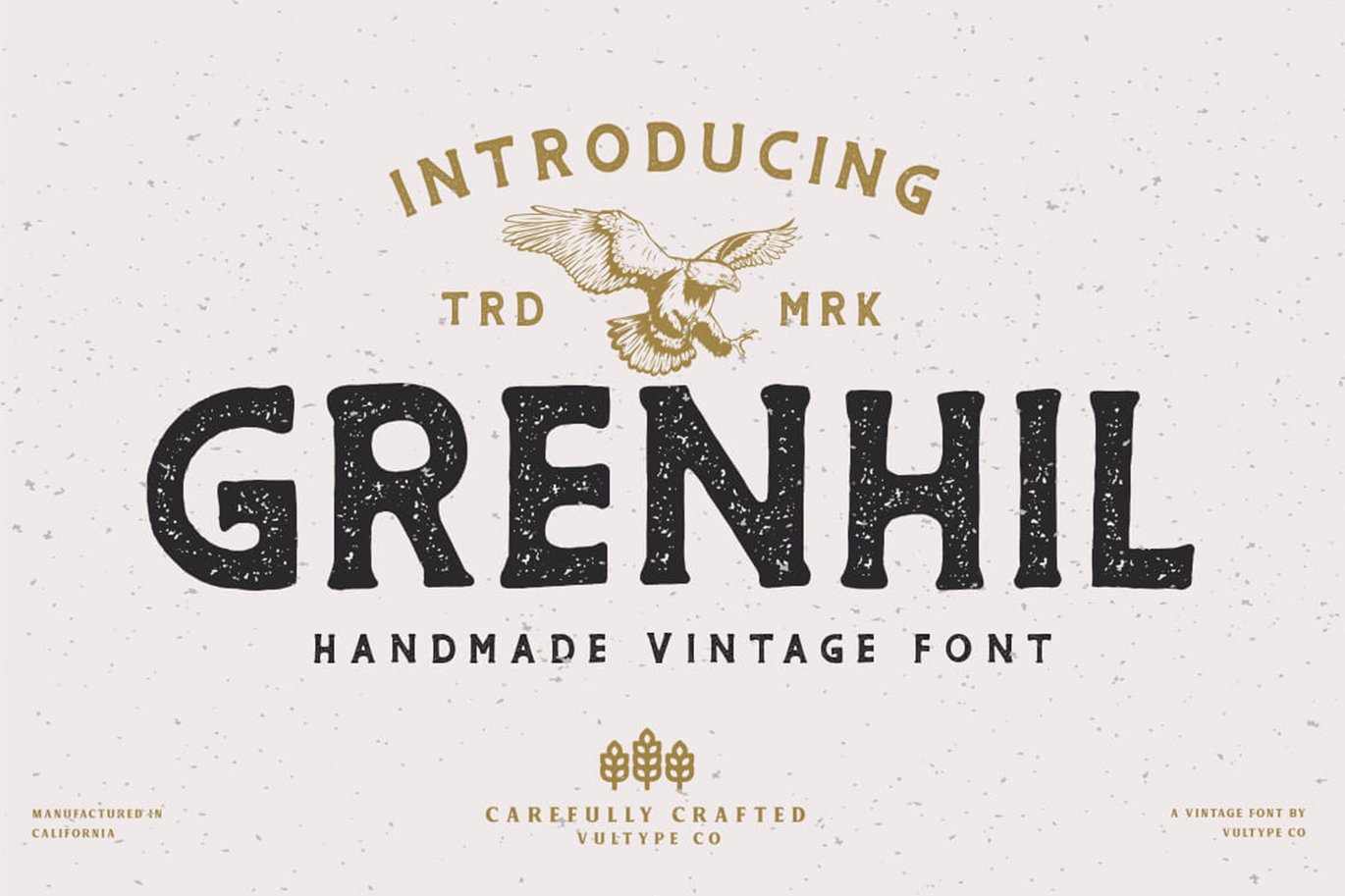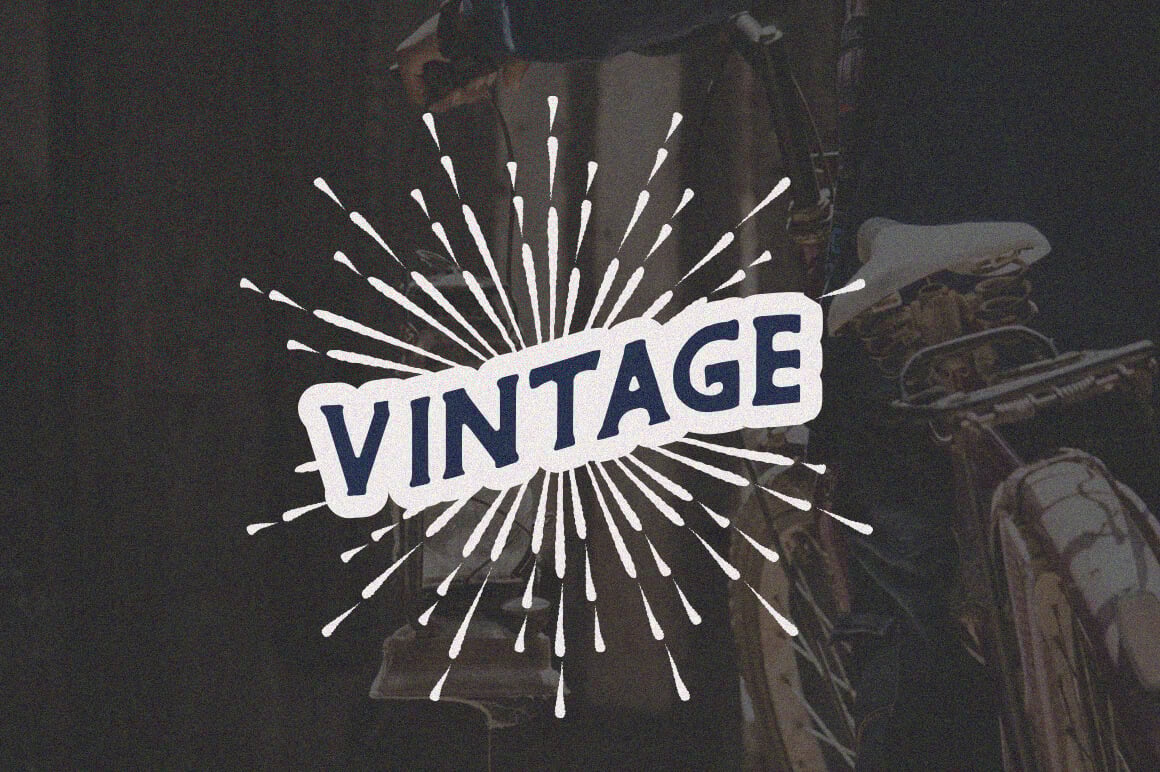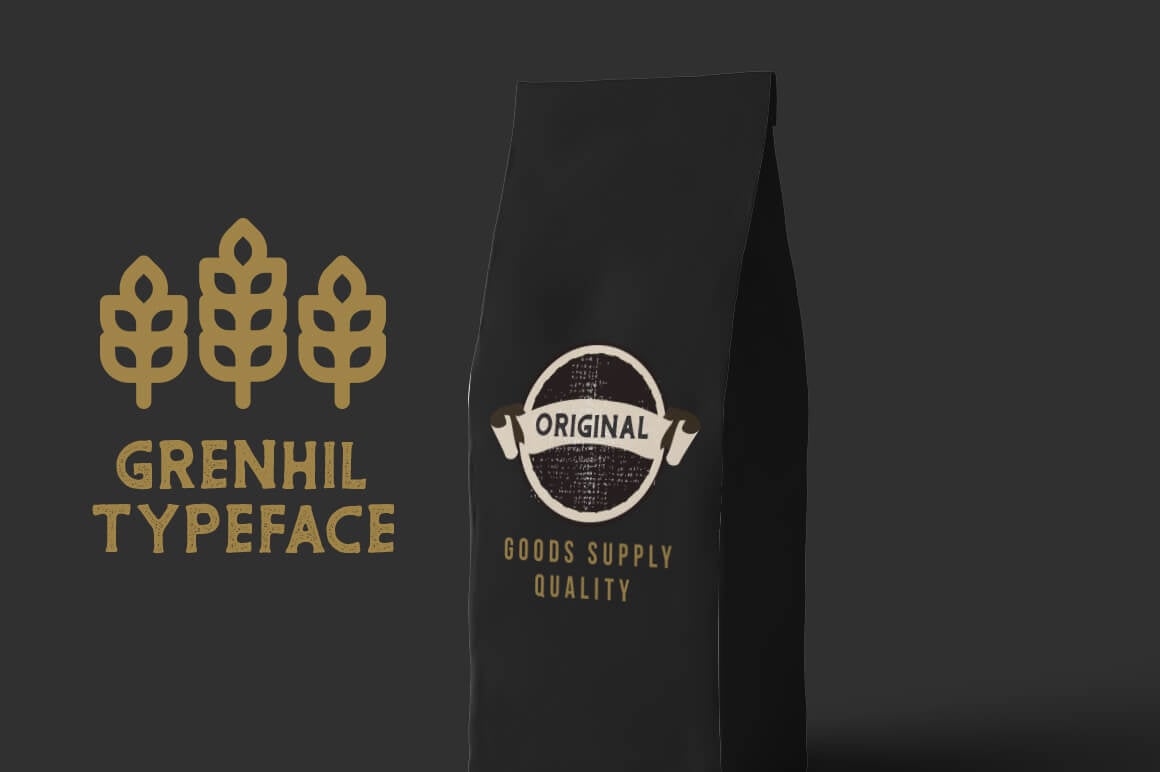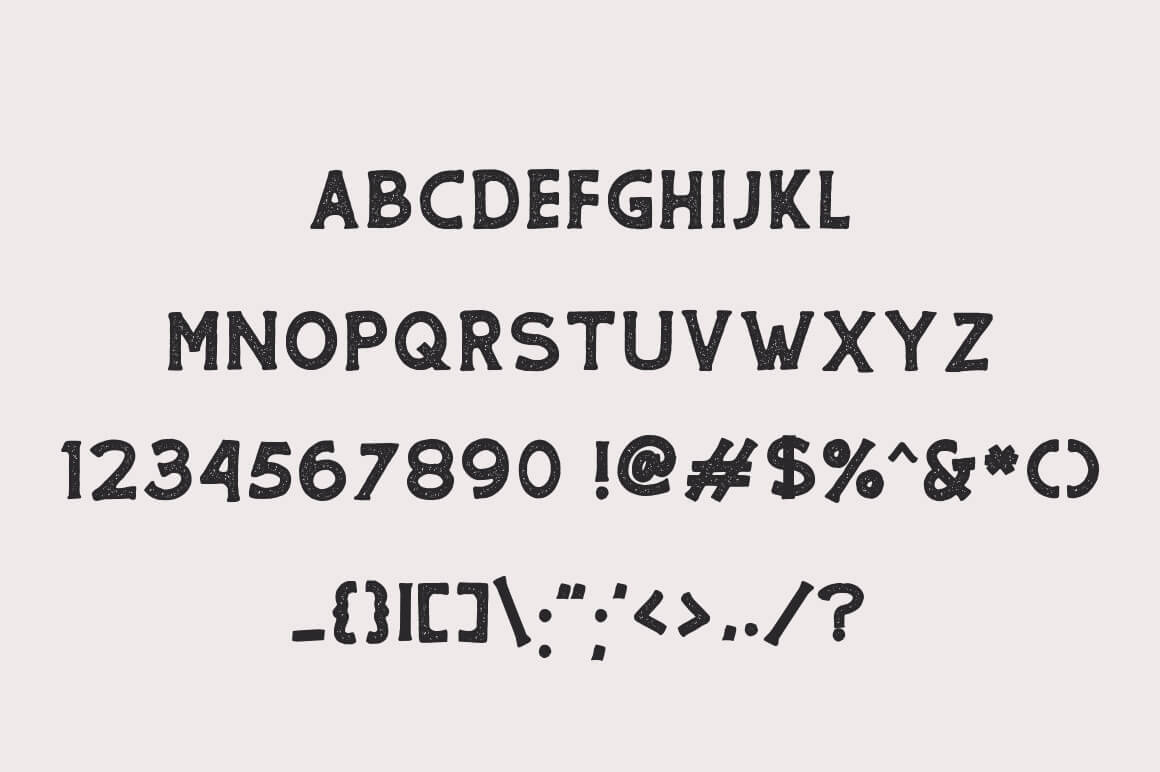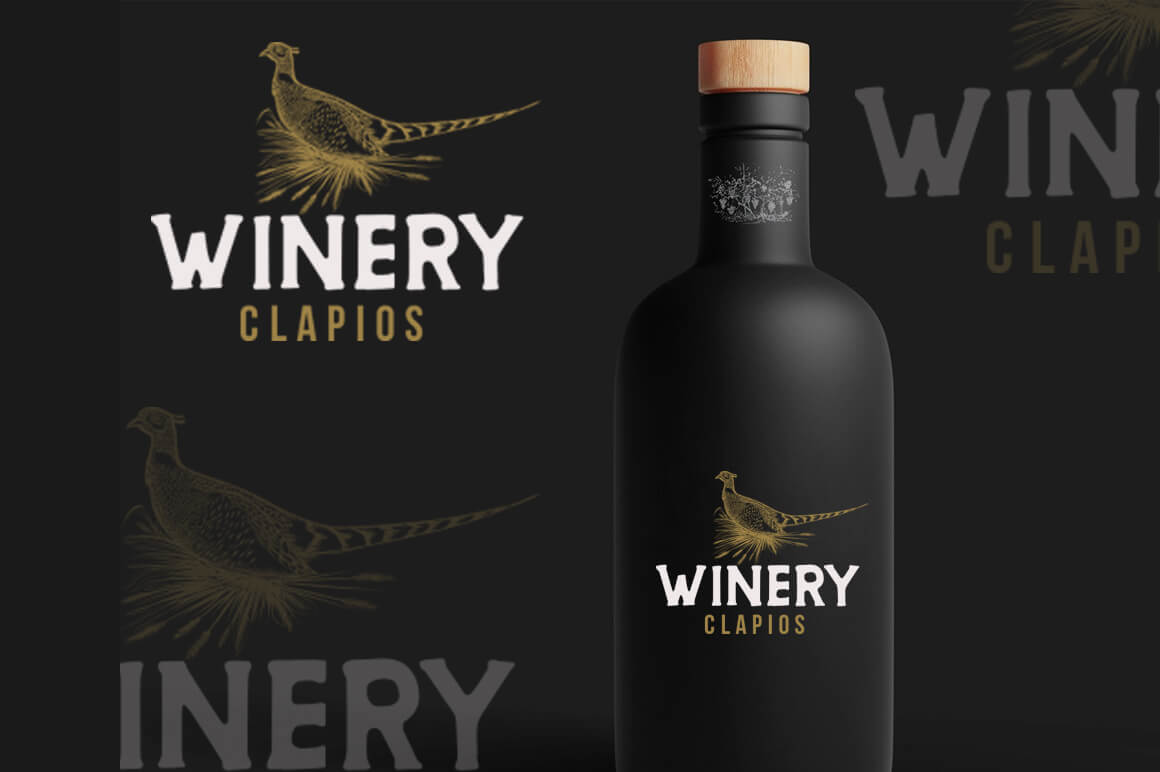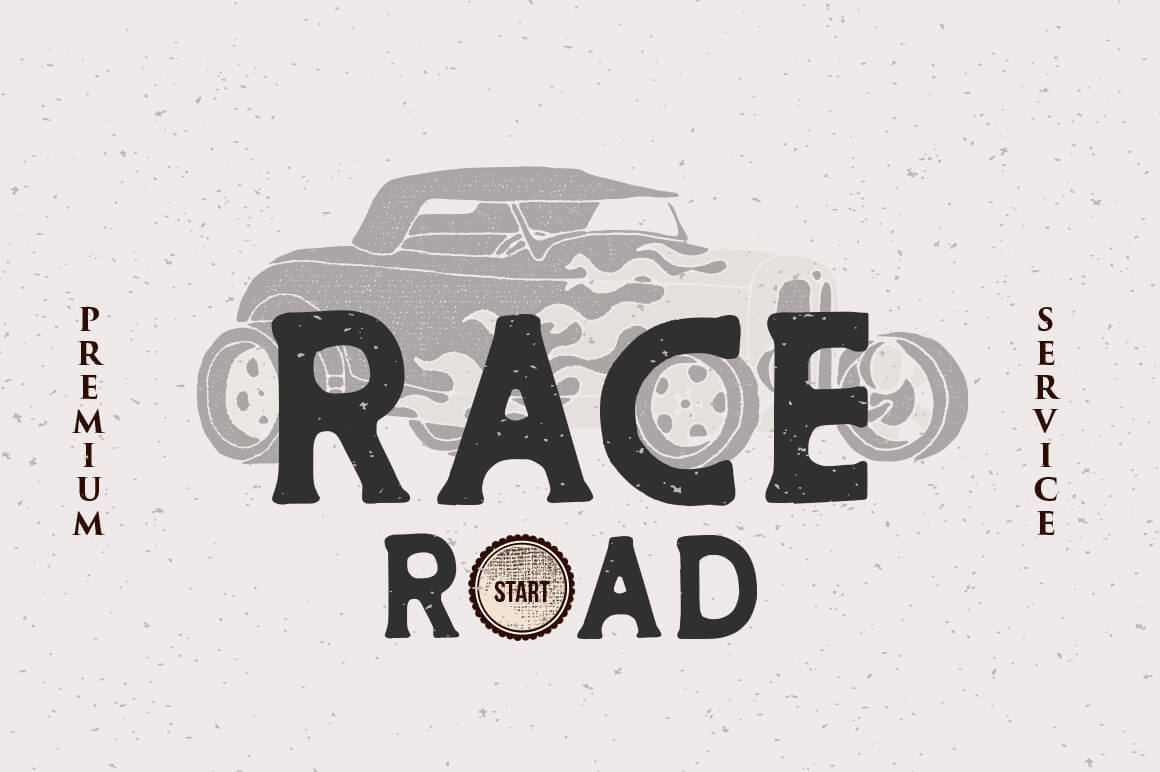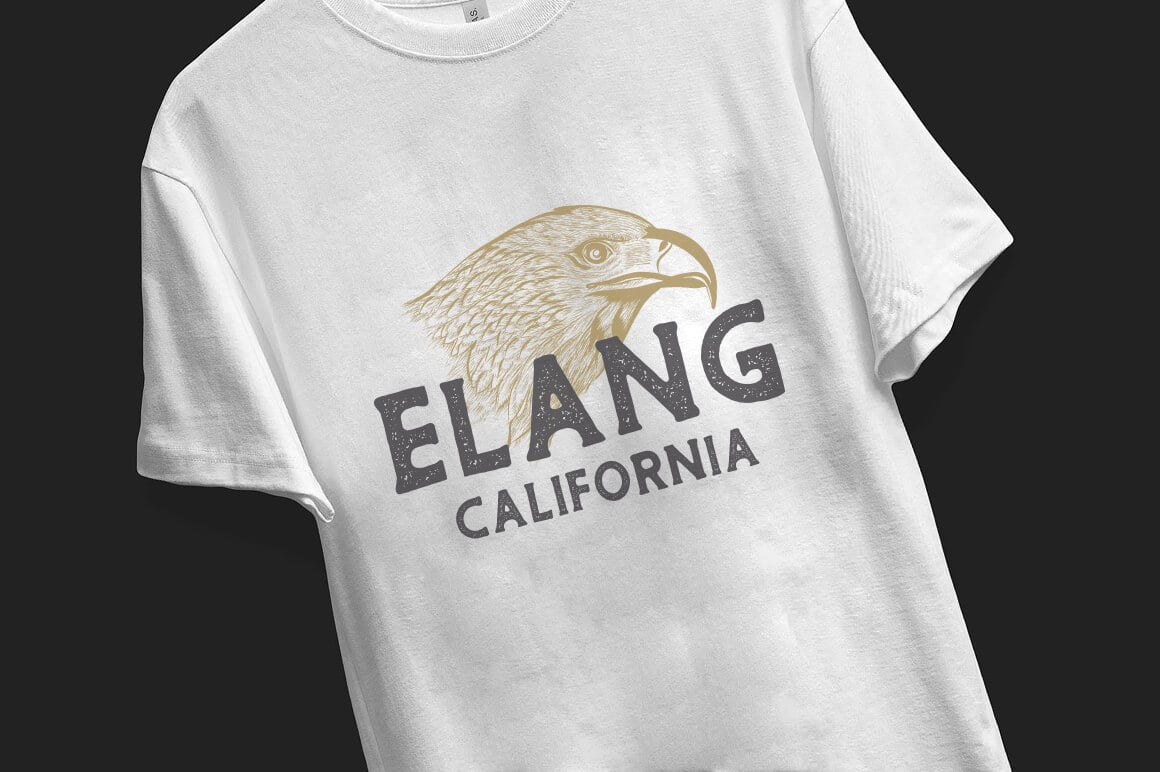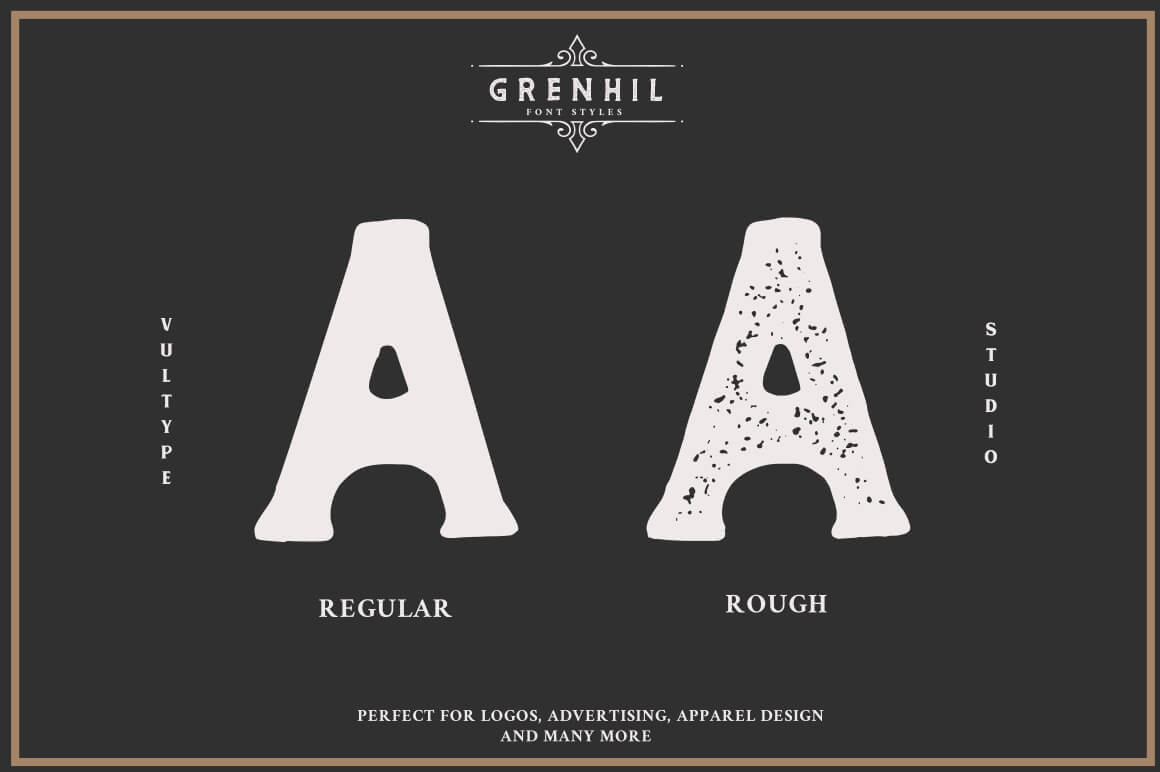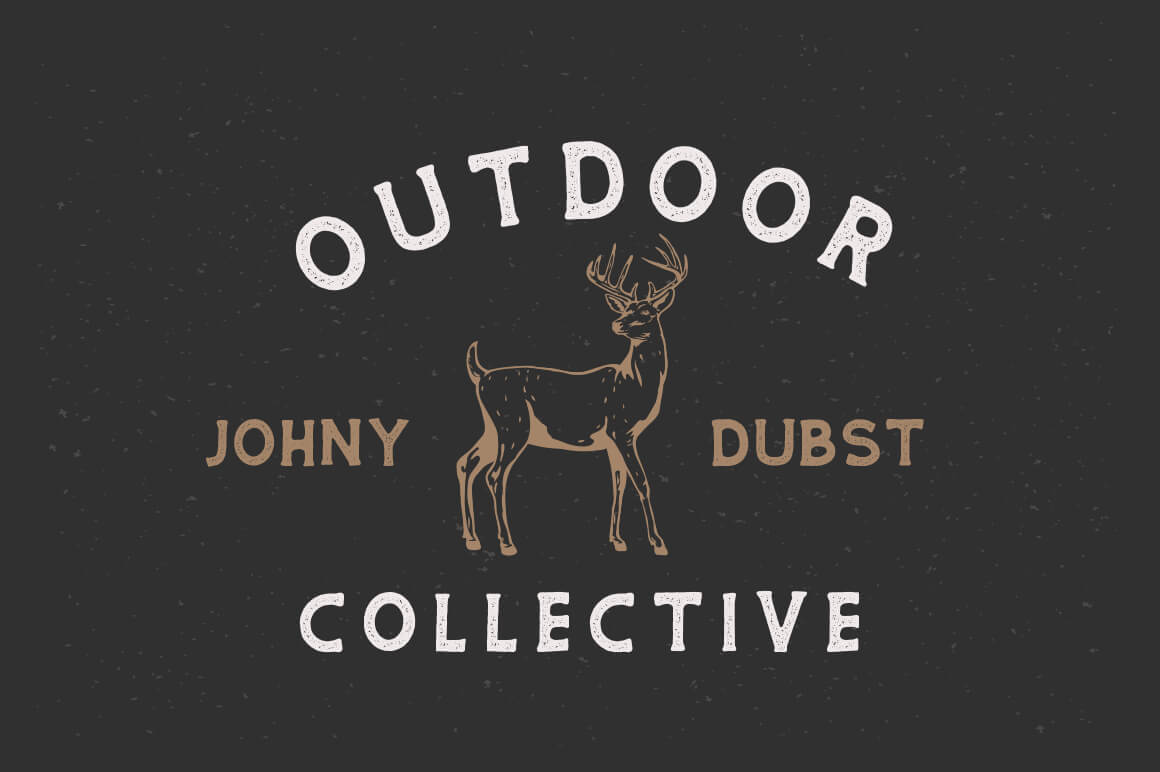
Grenhil Vintage Font
Grenhil is a Bold Handcrafted Vintage Font. Masterfully designed to become a true favorite, this font has the potential to bring each of your creative ideas to the highest level!
Font Features :
- Uppercase + Lowercase Letters
- Numbers + Punctuation
- Ligature Feature
- OpenType features